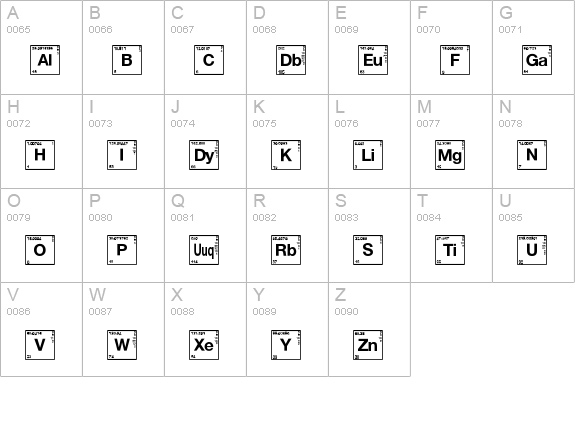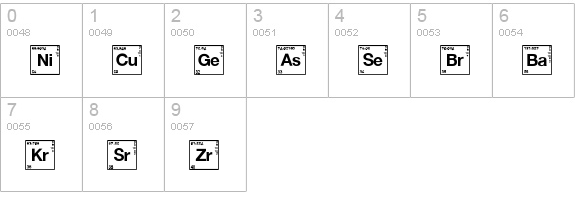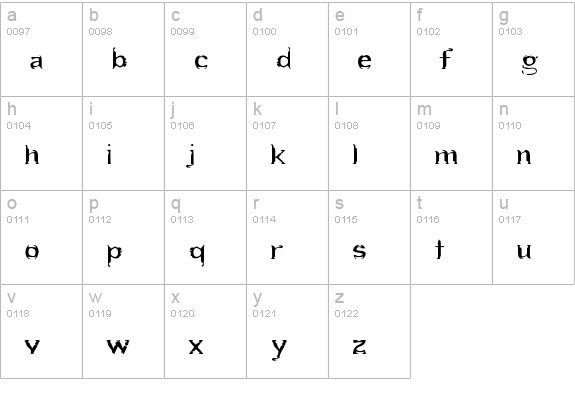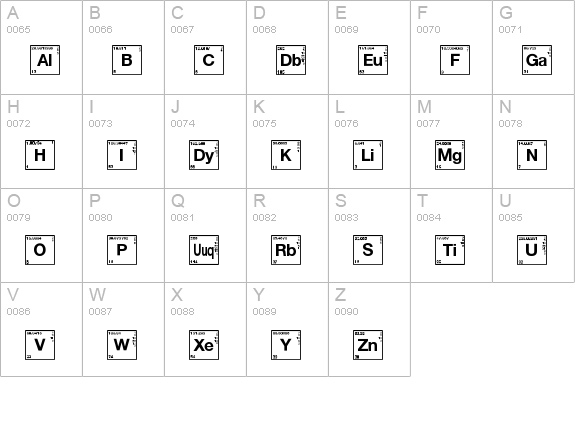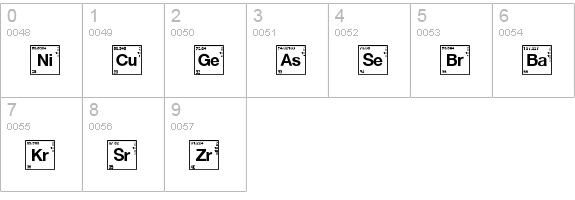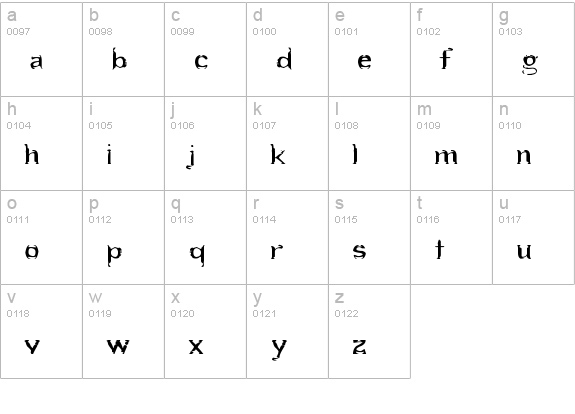
Heart Breaking Bad font is a stunning and versatile typeface that perfectly captures the essence of heartbreak and emotion. Its bold and edgy design makes it ideal for creating impactful and expressive typography for various projects. The intricate details and unique letterforms of Heart Breaking Bad font add a touch of drama and intensity to any text. This font is freely available to download at FontsMarket.com, making it easily accessible for designers and creatives looking to add a touch of emotion and style to their work. Whether you're designing a poster, logo, or social media graphic, Heart Breaking Bad font will help you convey your message with passion and flair. Give your designs a touch of heartbreak with this captivating and powerful typeface.